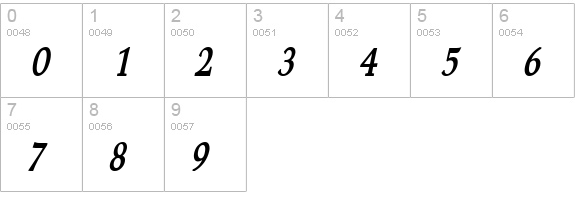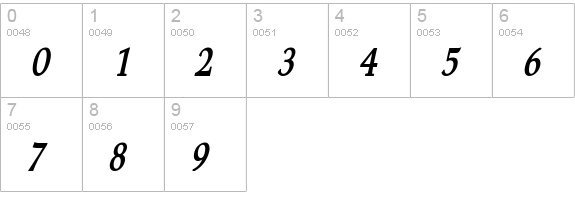
Carmine-Condensed Bold Italic Font Details
Carmine-Condensed Bold Italic is a strong, high-contrast, condensed-width, italic variant in the Carmine typeface family \xE2\x80\x94 well suited to headlines, attention-grabbing titles, and strong calls-to-action.
Introducing Carmine-Condensed Bold Italic font, a striking and versatile typeface that exudes elegance and sophistication. Its bold and italicized design adds a touch of modernity and flair to any project, making it perfect for headlines, logos, and branding materials. The condensed style of this font allows for a sleek and streamlined appearance, while still maintaining excellent readability. What sets Carmine-Condensed Bold Italic font apart is not only its exceptional design but also its accessibility - it is completely free to download at FontsMarket.com. This means that you can elevate your designs without breaking the bank, making it an ideal choice for designers on a budget or anyone looking to add a touch of style to their projects. Don't miss out on this fantastic opportunity to enhance your work with the beautiful Carmine-Condensed Bold Italic font - download it for free today at FontsMarket.com!